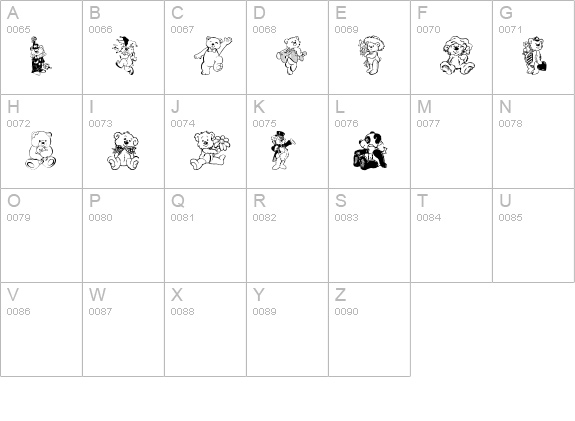
Introducing BearBats font - a whimsical and playful typeface that combines the strength of a bear with the mysterious charm of bats. This unique font features bold, hand-drawn characters that are perfect for adding a touch of fun and personality to your projects. BearBats font is ideal for a variety of uses, including branding, logo design, social media graphics, posters, and more. Its versatile nature allows you to create eye-catching designs that stand out from the crowd. Best of all, BearBats font is completely free to download at FontsMarket.com. So go ahead and unleash your creativity with this delightful typeface today!